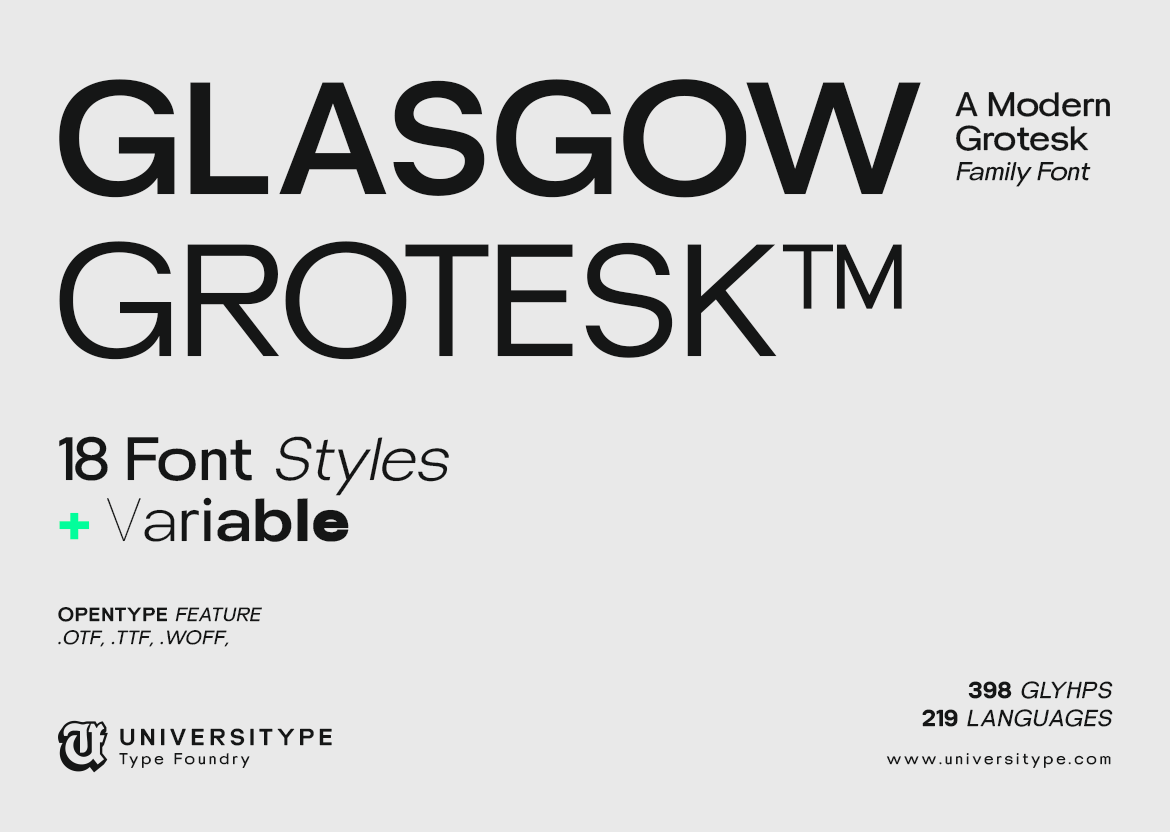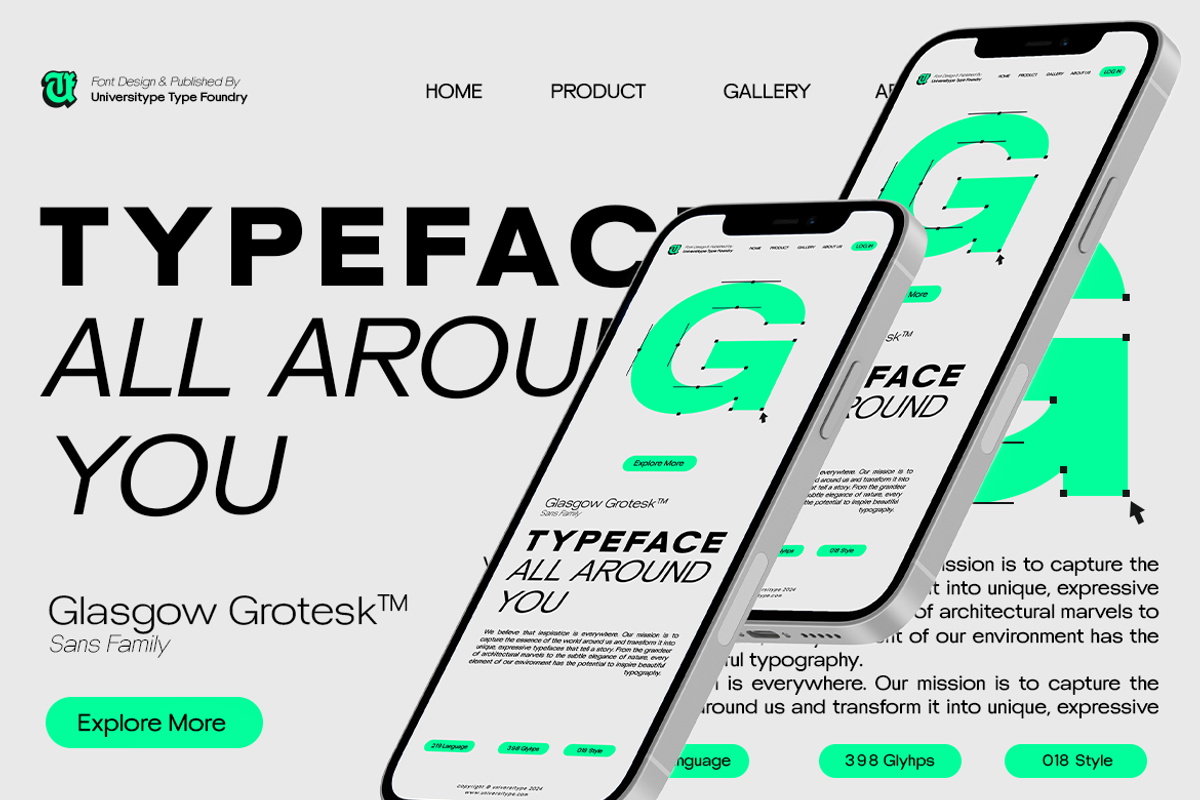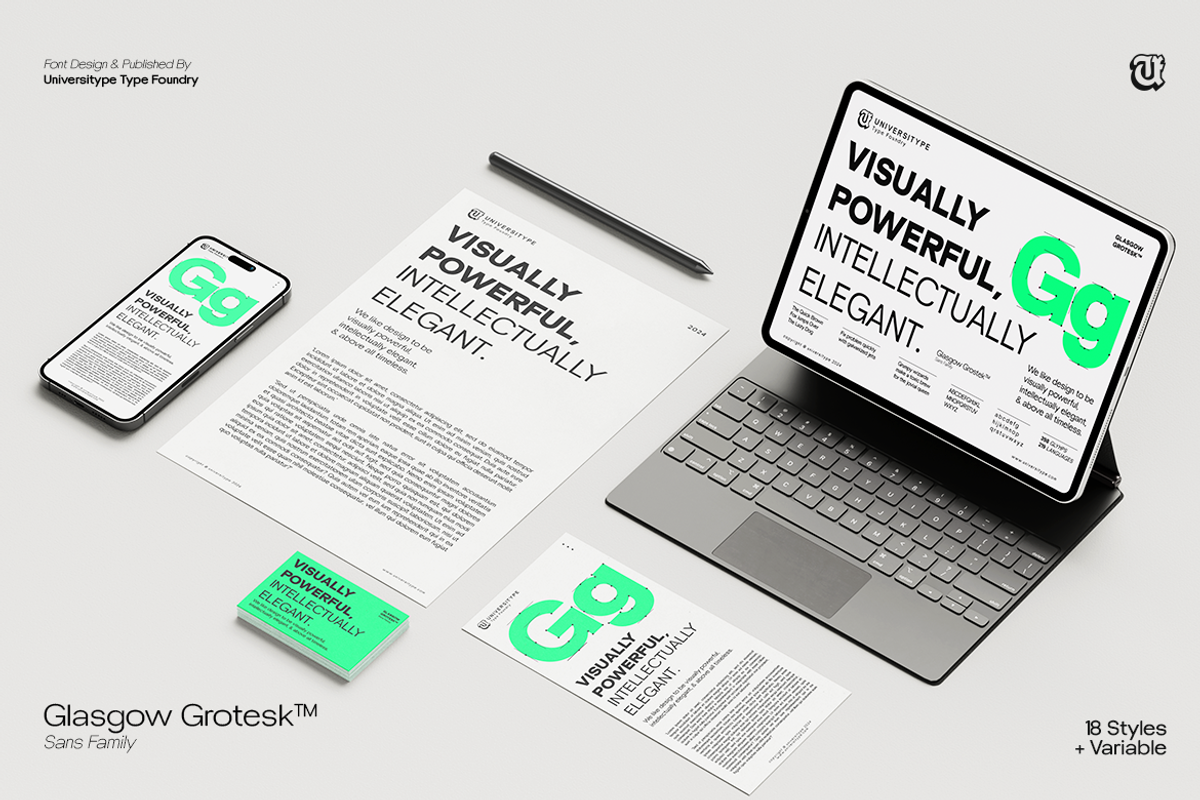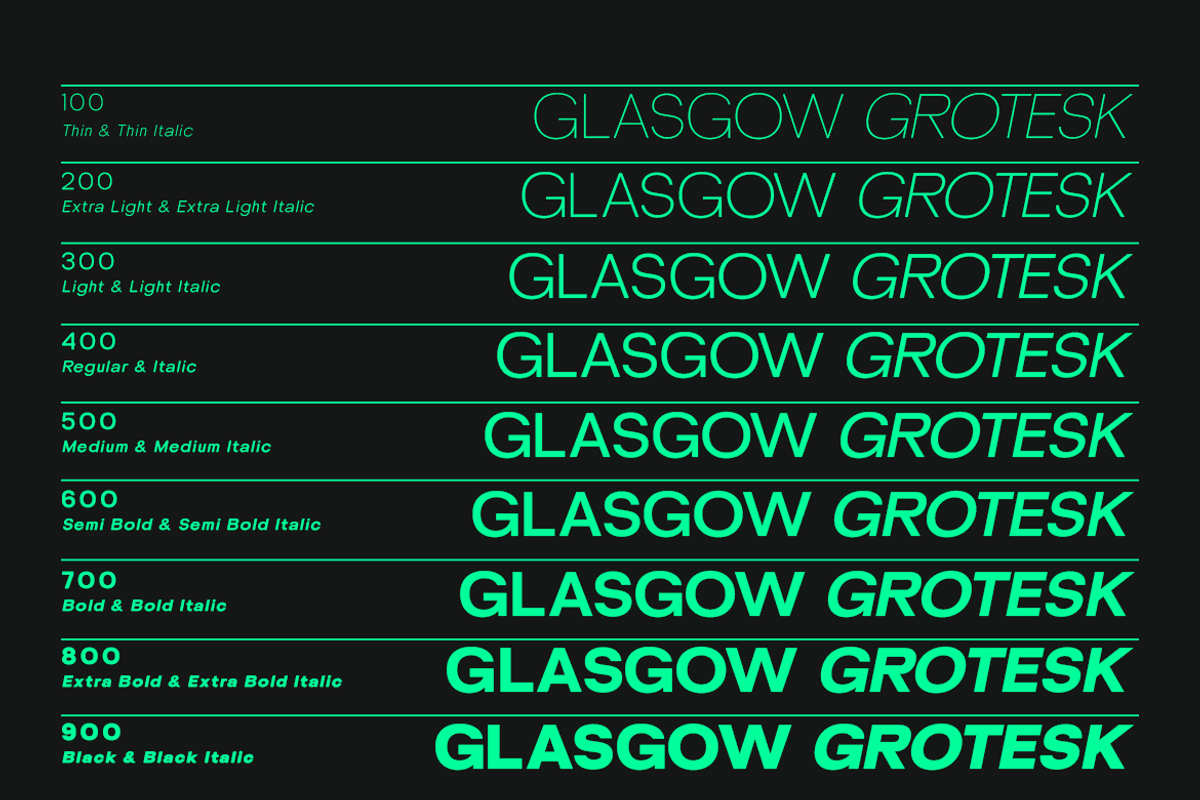
UT Glasgow Grotesk Family Font
UT Glasgow Grotesk is a versatile and sophisticated sans-serif typeface, designed by the Universitype Team, that offers a full spectrum of typographic expression. As a variable font with 18 distinct styles, it provides designers with the ultimate flexibility to customize weight and width, making it perfect for both digital and print applications.
This font family is ideal for creating modern, professional designs with a sleek, minimalistic edge. Whether you’re working on responsive web designs, interactive media, or building a cohesive brand identity, UT Glasgow Grotesk’s dynamic capabilities allow you to tailor the typography to fit your specific needs. Its elegant thin style adds a touch of sophistication, making it a standout choice for headlines, branding, editorial design, and more. Embrace the future of type design with UT Glasgow Grotesk and bring your creative vision to life with precision and style.
Font Style and Characteristics Variable Font: Being a variable font, UT Glasgow Grotesk offers dynamic flexibility in terms of weight and width. Designers can fine-tune the font’s appearance to suit specific design needs, from ultra-thin to bold variations. Modern Grotesque: As a member of the grotesque family, the font maintains a neutral and straightforward style, characterized by clean lines, balanced proportions, and a no-nonsense approach to type design. Elegant and Professional: The thin weight adds an element of elegance, making it suitable for upscale brands and sophisticated design projects.
Expanded Best Use Cases
- Web Design: The font’s variable nature makes it ideal for responsive web design, where typography needs to adapt seamlessly across different screen sizes and resolutions.
- Interactive Media: In digital products and applications, the ability to adjust font weight on the fly allows for dynamic text rendering that can enhance user experience.
- Brand Identity Systems: With 18 styles to choose from, UT Glasgow Grotesk can be used to create cohesive brand identity systems, offering consistency across various media while still allowing for nuanced expression in different contexts.
- Typography-Focused Projects: For projects that emphasize typography, such as book covers, posters, and typographic art, this font offers the versatility to experiment with different visual effects using its range of styles.